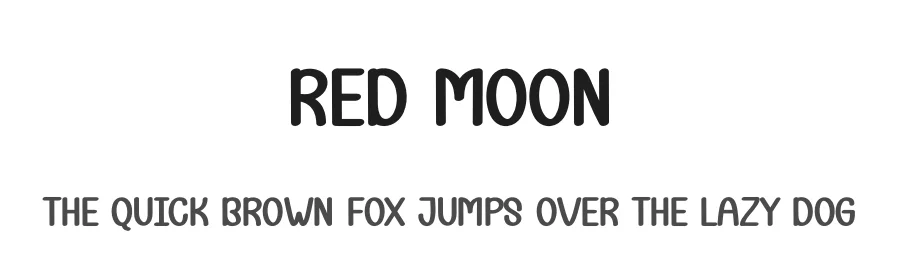
About School Moment Font
School Moment Font is a script font that shines as a display or heading face. Pair it with a clean sans-serif or serif font for body text β the contrast creates a clear hierarchy while the two styles stay balanced and easy to read.